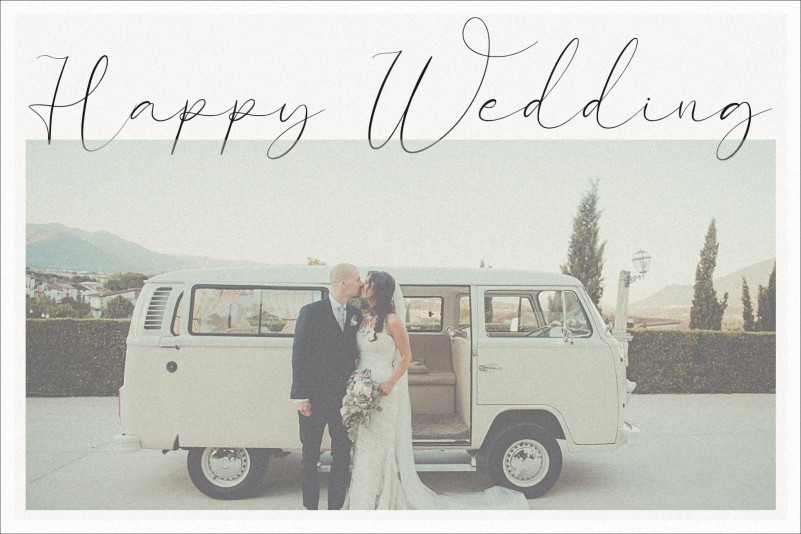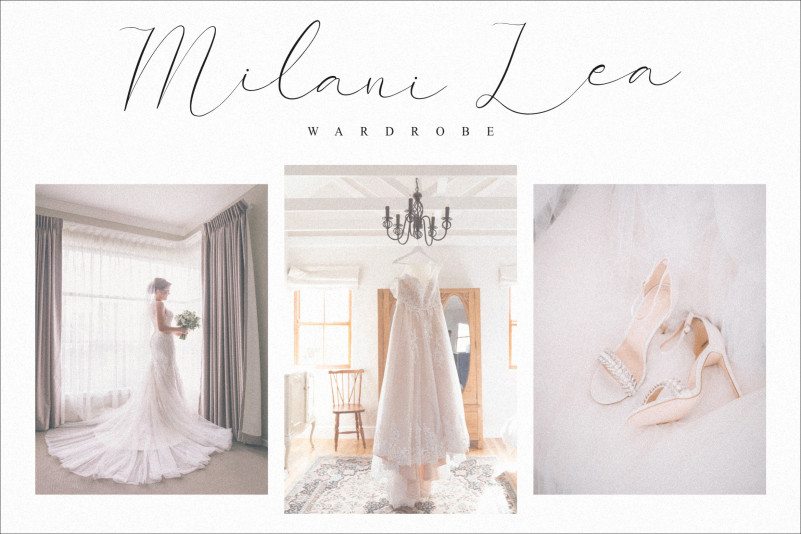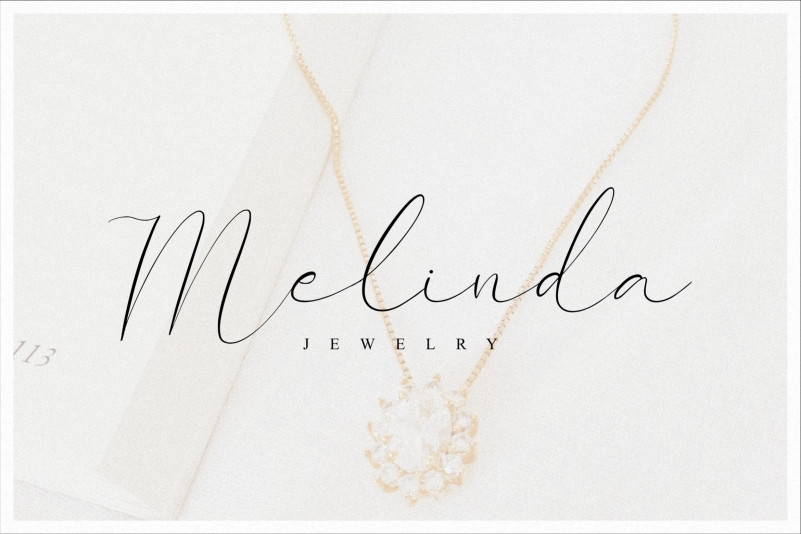
Night Time Story Script Font
Night Time Story is a modern script font family with an authentic touch. 7 fonts included, from ultra condensed to expanded styles. This font is perfectly made to be applied especially in logos, and various other formal forms such as invitations, labels, logos, magazines, books, greeting/wedding cards, packaging, fashion, make-up, stationery, novels, labels, or any type of advertising purpose.